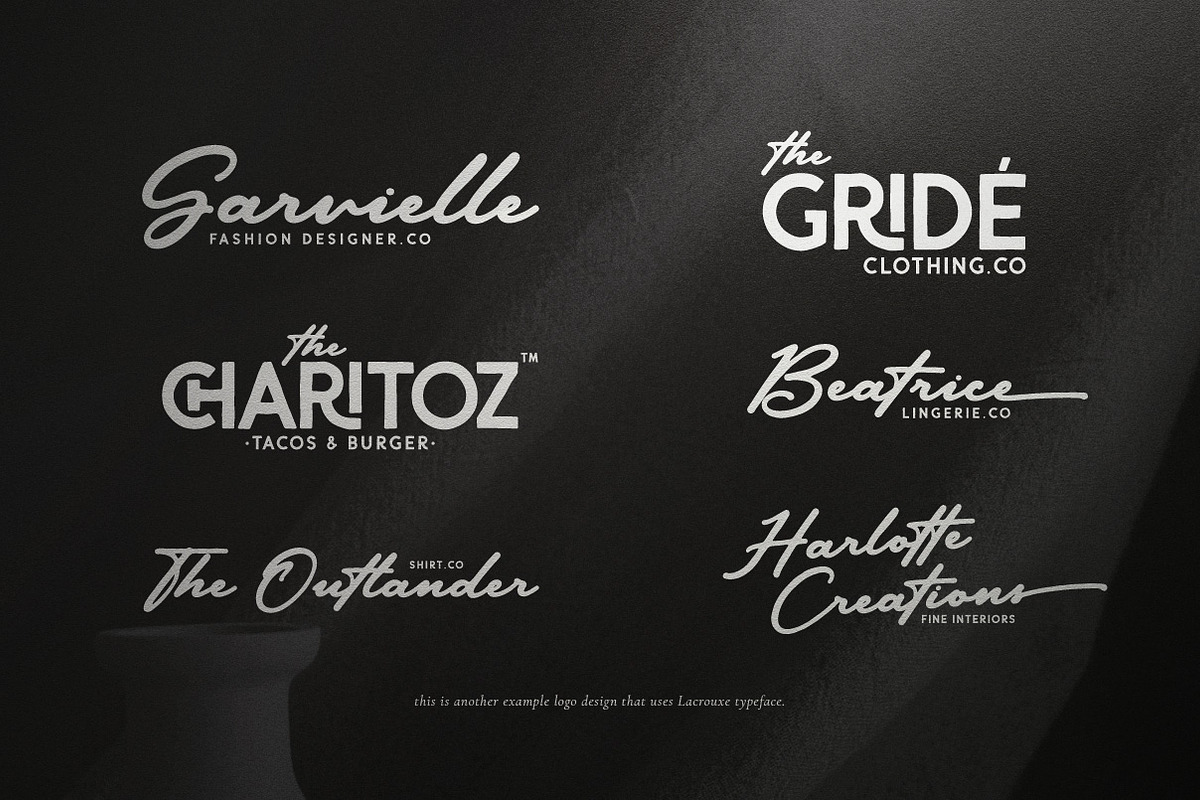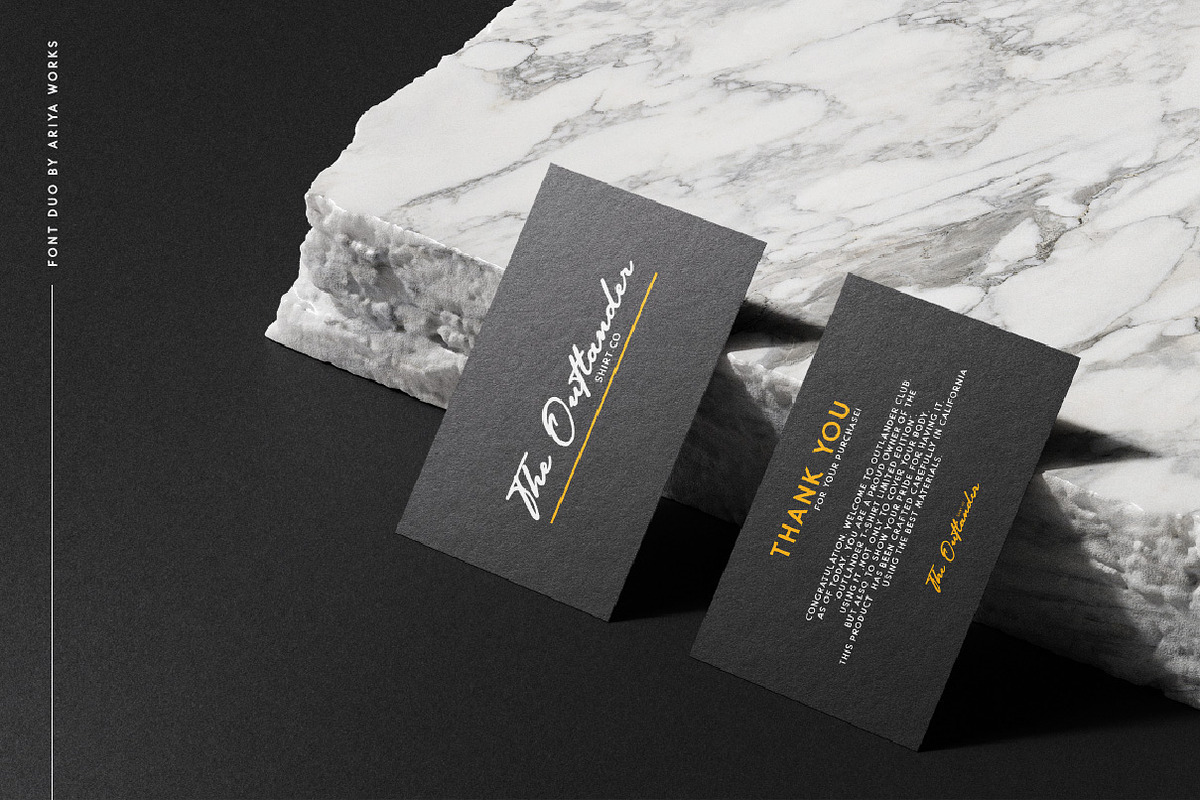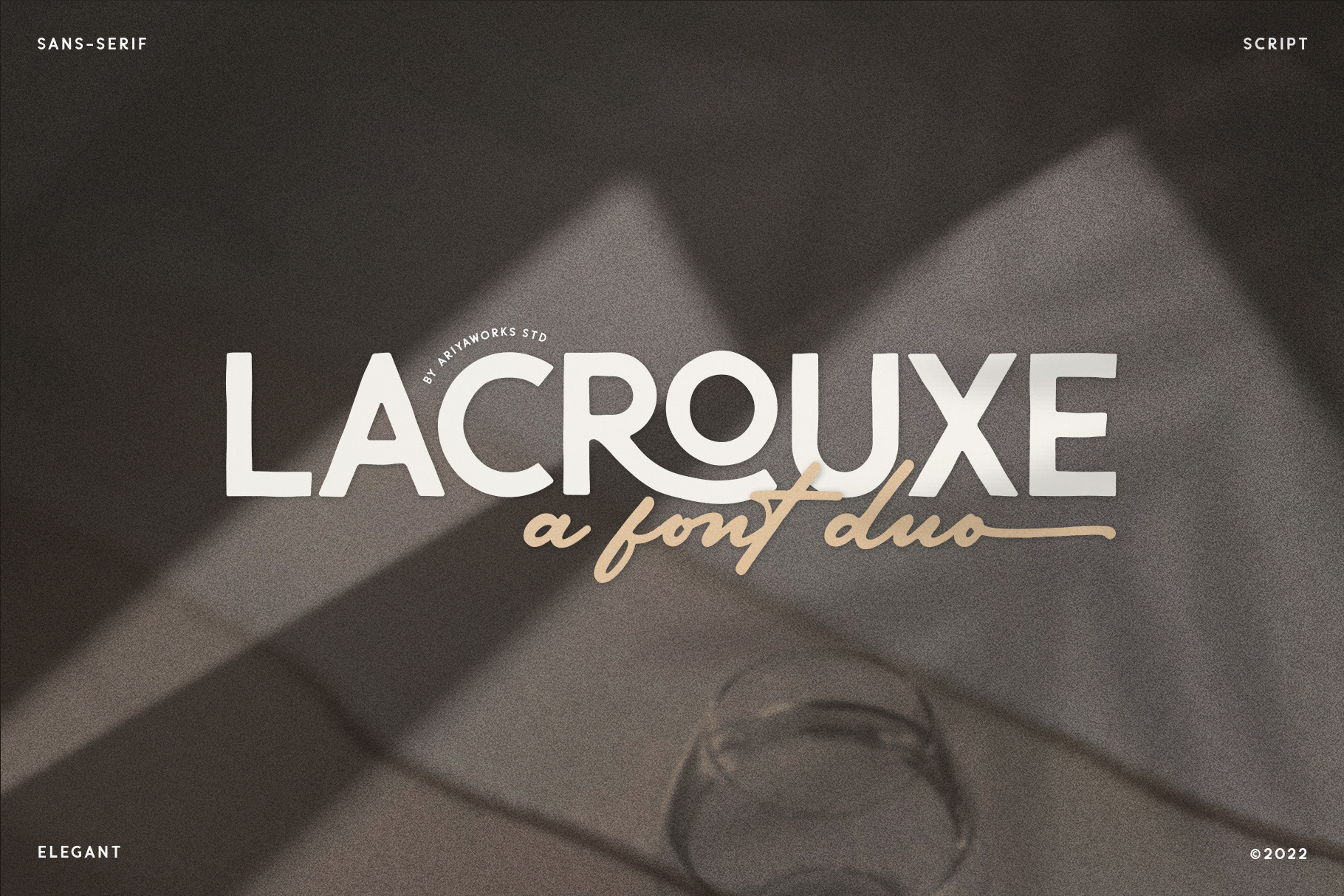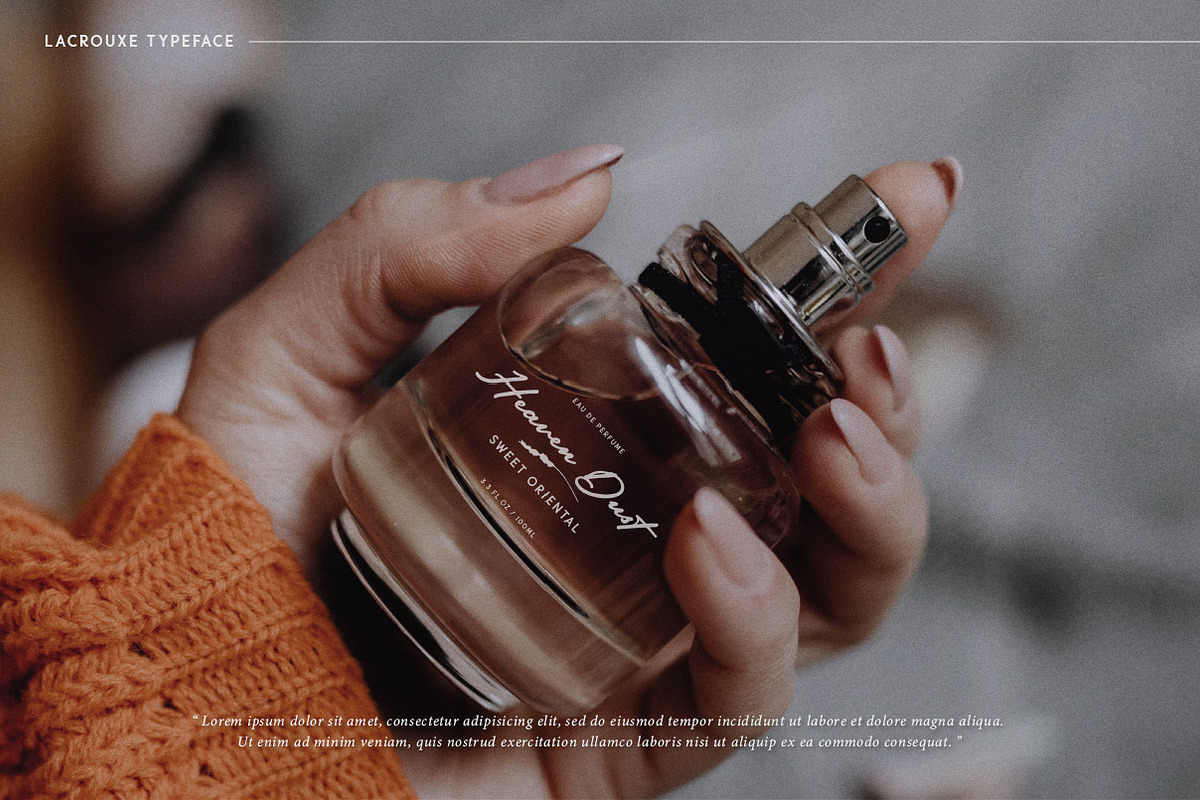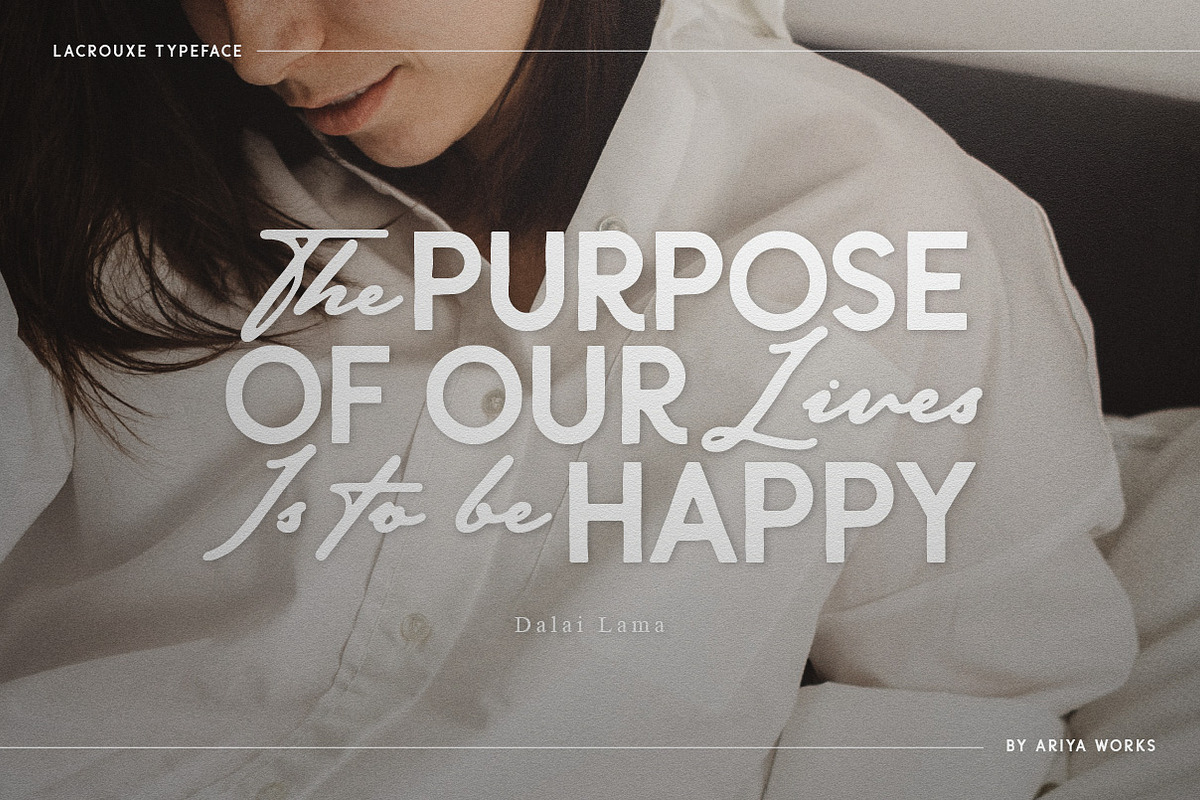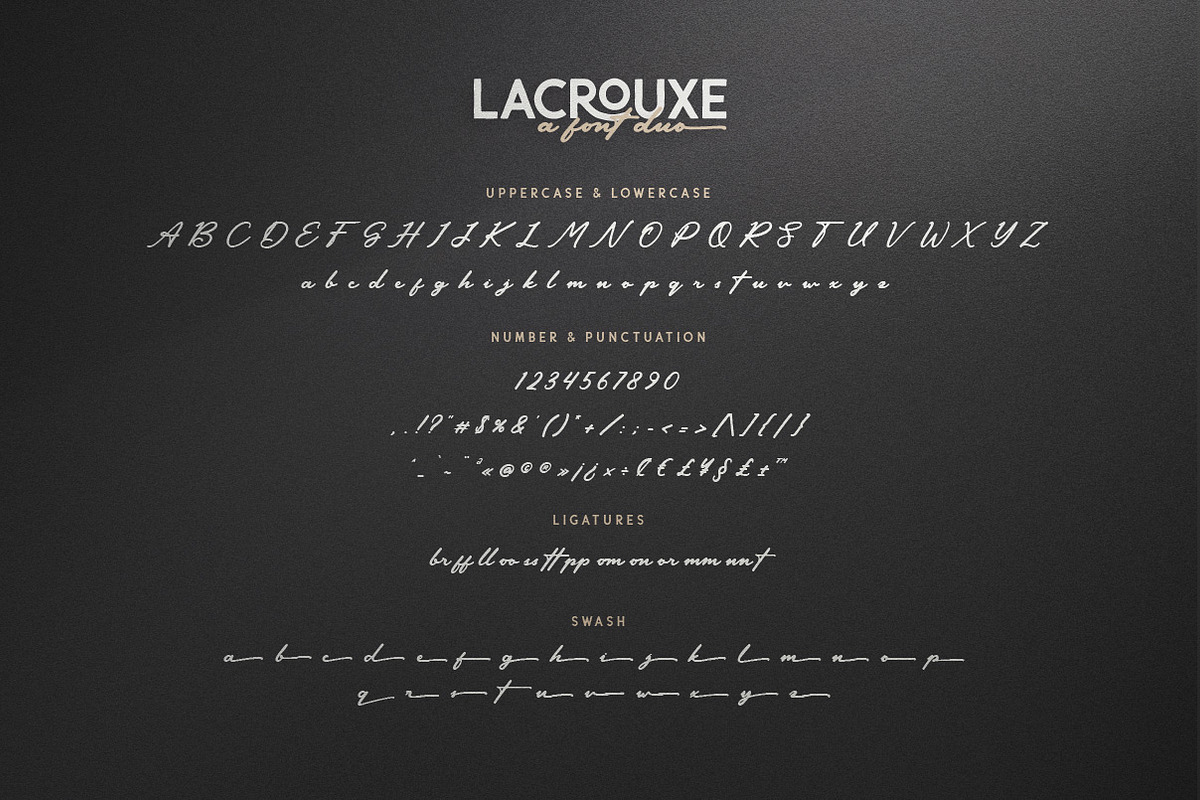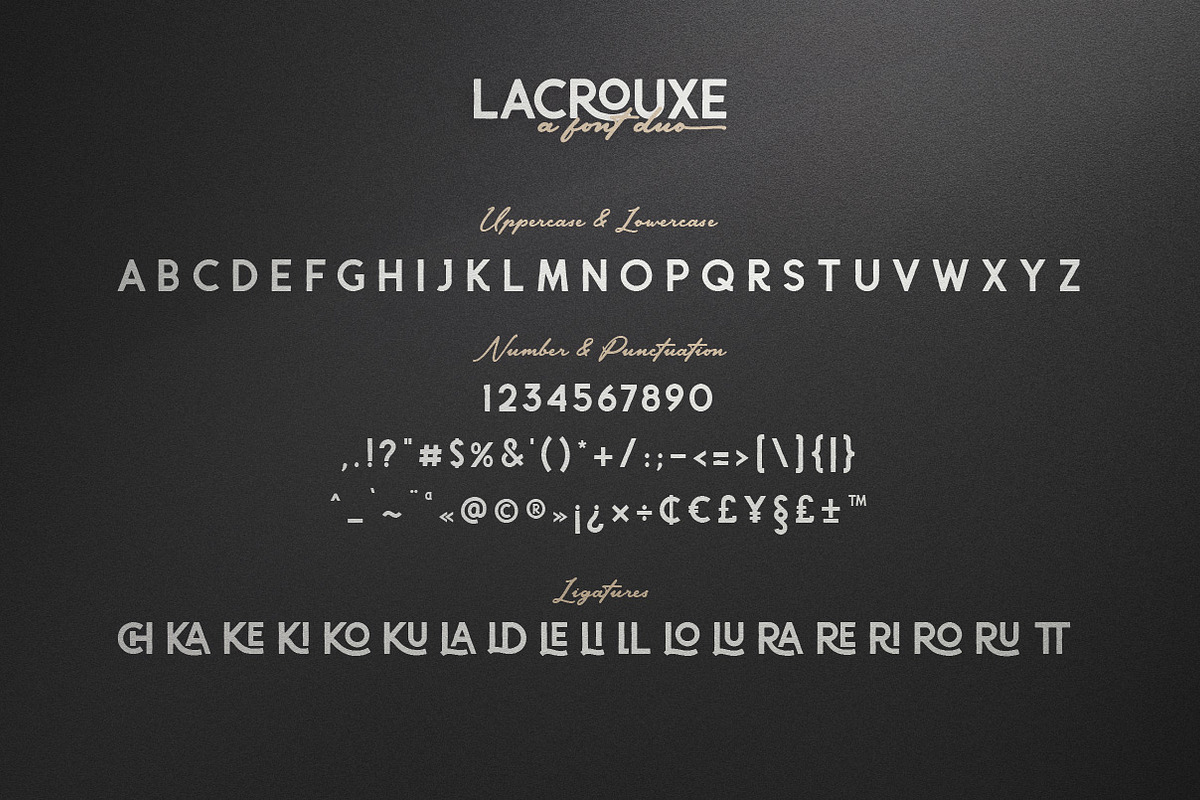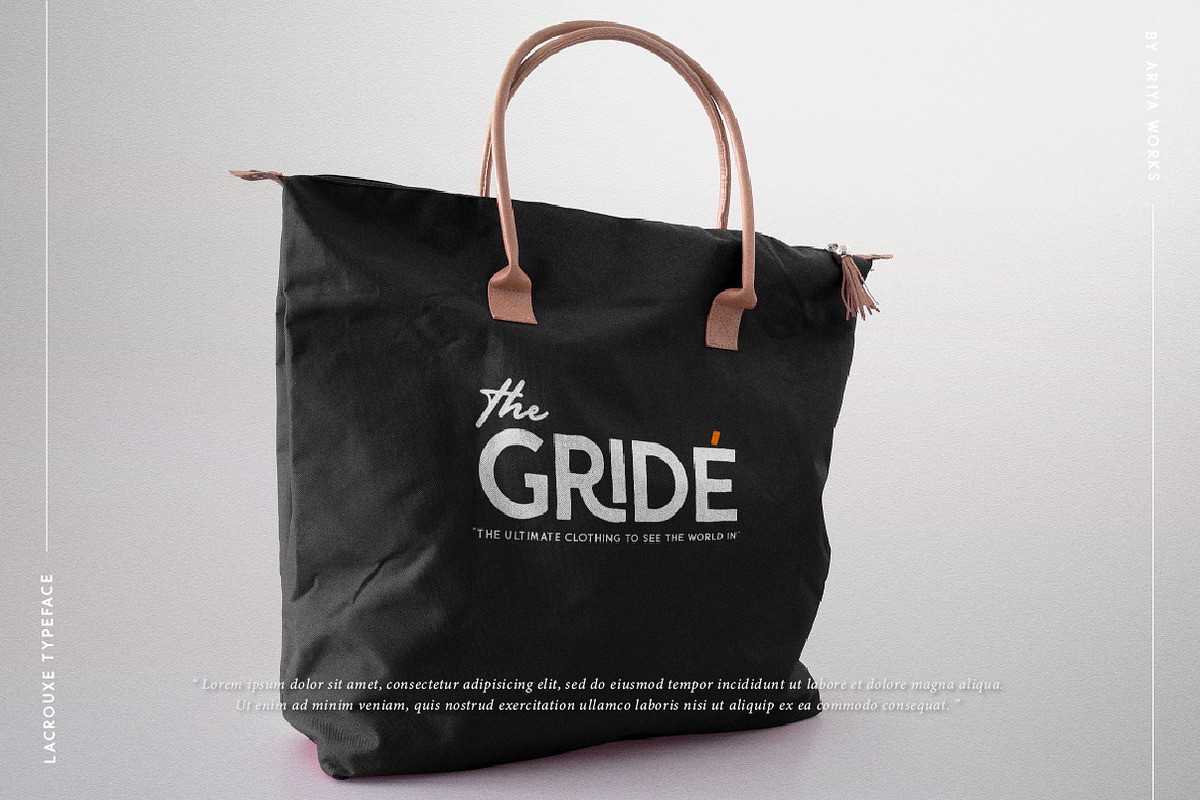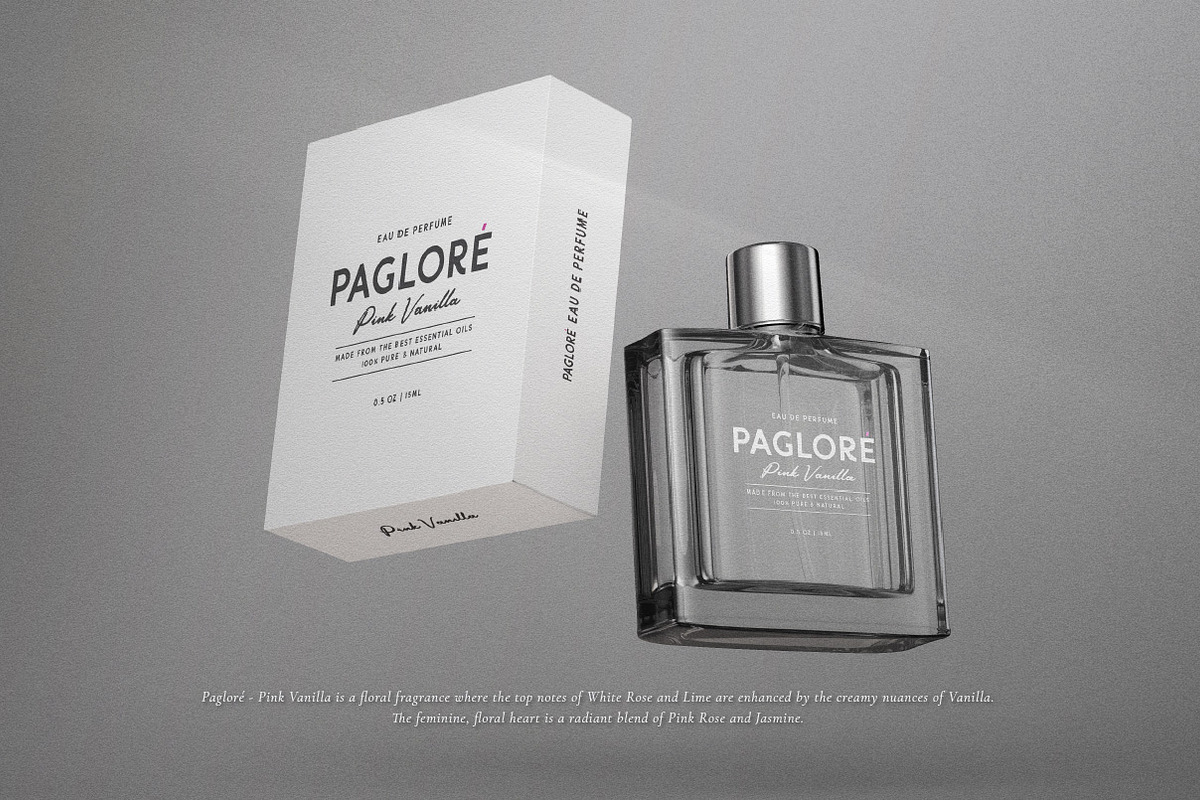
Lacrouxe | Font Duo
" LACROUXE - Duo Font"
Lacrouxe is an old-school handwritten script font paired with sans-serif ligature font, this font has a bold and classy look. This font will make your designs look stand out, stylish and authentic. It is suitable for any projects such as: website, logos, branding identity projects, label, photography, watermark, special events, and all your other lovely projects that need a authentic font design.
This font offers opentype features such as swash and ligatures sets. It offers support for all English characters, some characters in multiple languages and standard punctuation marks are included.